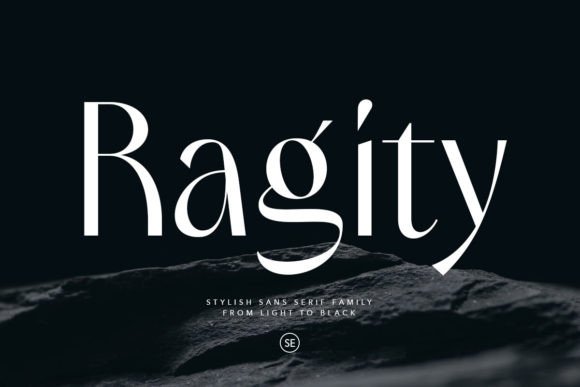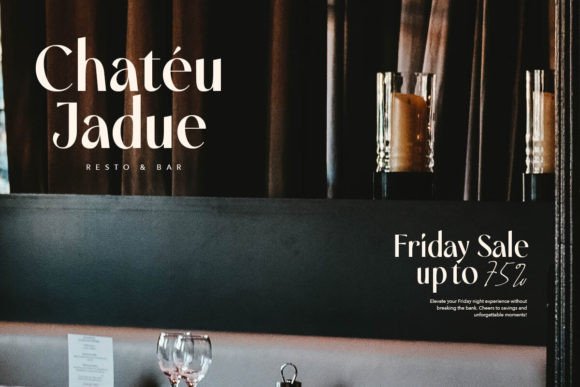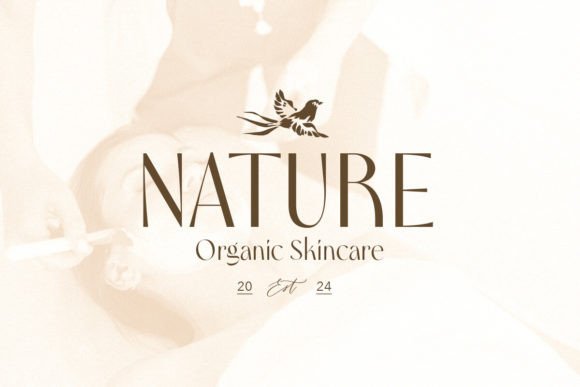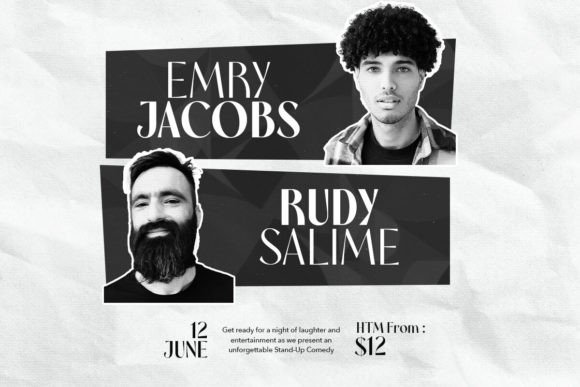
Ragity Font: Modern Minimalist Sans Serif for Elegant Logo Design & Branding
About the Ragity Font
Meet Ragity Font, a stunning font that brings a touch of elegance and professionalism to any design. Ragity is a stylish and modern sans that have minimalist looks with beautiful details. You can use this font for any purposes such as wedding invitation, logo, quotes, and also excellent for branding. With 7 weigh from Light to Black, you can choose how bold your project needs. This font also support multi language!
Ragity’s minimalist aesthetic makes it ideal for logos, branding materials, and short headlines where its clean lines and subtle details shine. It also performs well in short-form content such as quotes or social media posts. However, its delicate letterforms aren’t suited to body text or extended reading; smaller sizes can become difficult to read. Avoid using it for UI elements or large blocks of text.
Its modern, yet subtly elegant personality pairs well with fonts like Playfair Display (a classic serif) for a sophisticated contrast, or with a geometric sans-serif like Montserrat for a contemporary feel. For a more playful touch, consider pairing it with a script font like Great Vibes, but use it sparingly as an accent.
Ragity’s overall mood is sophisticated and contemporary, lending itself to projects seeking a clean, refined aesthetic. Brands aiming for a modern and minimalist image, especially in the fashion, beauty, or technology sectors, will find it particularly effective.
Ragity Font Usage Examples